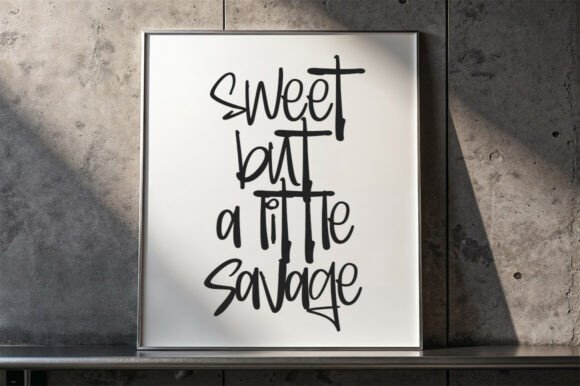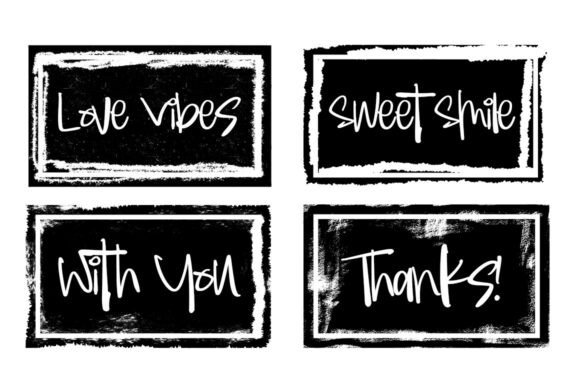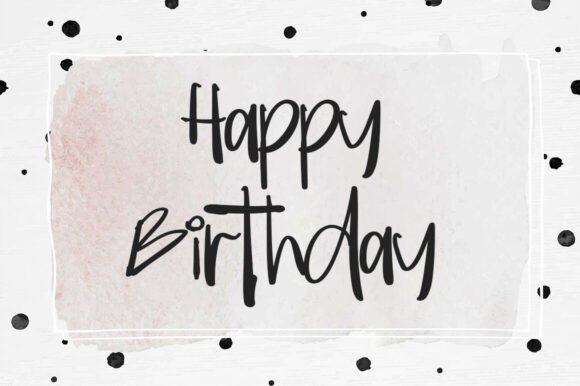
Unlocking the Potential of Your Creative Project with Manthuls Font
As you sit down to design a new project, the blank canvas stares back at you, full of possibilities. Your mind begins to wander through a sea of colors, shapes, and typography. But what if you could add a spark of personality to your design, something that sets it apart from the crowd? Enter the Manthuls Font, a dynamic and expressive handwritten brush face that brings a raw, energetic soul to your creative canvas.
With its natural textures and irregular strokes, the Manthuls Font is the perfect design resource for high-impact headlines, rugged apparel branding, and urban-style posters. Whether you’re working on a free download for social media or a high-quality logo for a local enterprise, this font adds an authentic, human touch that feels both spirited and genuine.
Discover the Power of Manthuls Font
Imagine pairing this bold, handmade font with a clean, neutral sans-serif to create a professional contrast that lets the brush textures truly shine. The result is a design that’s both eye-catching and sophisticated, perfect for making a statement in your next creative project. By incorporating the Manthuls Font into your design, you’ll add a layer of depth and emotion that will keep your audience engaged.
- Features a unique and elegant design, perfect for adding a touch of sophistication to any project.
Honest Review: Manthuls Font
As a designer, I’m always on the lookout for high-quality design resources to enhance my creative projects. Recently, I stumbled upon the Manthuls Font, and I must say, it’s been a great addition to my design arsenal.
What works well about the Manthuls Font is its versatility and aesthetic appeal. The font is perfect for creating visually striking designs, from posters to business cards. The transparent background option allows for seamless integration with other design elements, making it a great design resource for creative projects.
- ✨ Unique and modern design aesthetic
- ✨ High-quality vector format for crisp and clear rendering
- ✨ Transparent background option for easy integration
However, there are some limitations to the Manthuls Font. ⚠️ The font family is quite limited, with only a few styles available. Additionally, the font may not be suitable for text-heavy designs, as the characters can appear quite thin at larger font sizes.
Overall, I’m impressed with the Manthuls Font and would definitely recommend it to designers looking for a unique and modern design aesthetic. While it may have some limitations, its high-quality design and transparent background option make it a valuable addition to any design resource collection.
Manthuls Font is a high quality design resource that can be used in a variety of creative projects. Some common use cases include:
- Branding
Getting the Most Out of Manthuls Font
To get the most out of Manthuls Font, use it in combination with other design elements, such as images and graphics. You can also experiment with different font sizes, colors, and styles to create a unique and creative look. Additionally, use the font with a transparent background to add a touch of sophistication to your design projects.
What makes Manthuls Font a high-quality design resource?
Manthuls Font features a transparent background, allowing designers to easily combine it with other design elements. Its clean and elegant design makes it an excellent choice for creative projects, from branding and advertising to editorial and publishing.